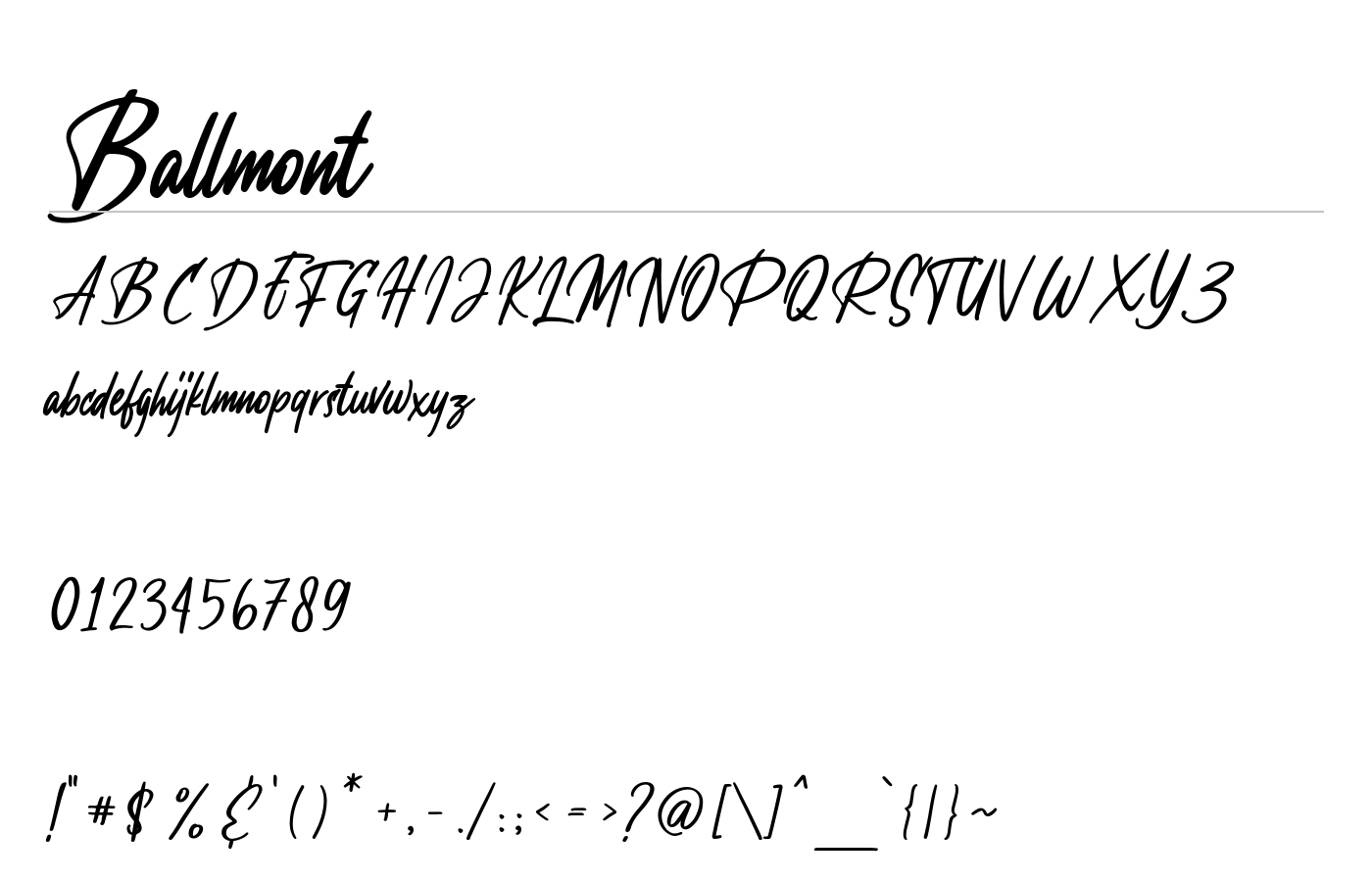
Ballmont is a lively script font that combines elegance with a casual, handwritten charm. Its medium weight and slightly condensed letterforms feature smooth, flowing strokes with moderate contrast, making it perfect for adding a personal yet stylish touch. Ideal for creative branding, invitations, and headlines, Ballmont brings warmth and personality to any design while maintaining readability and sophistication.
Ballmont Font